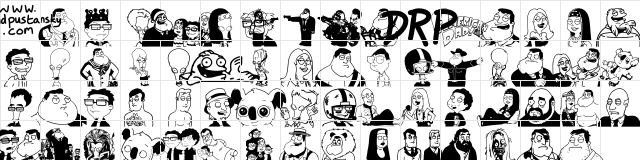
American Dad Good Morning USA Regular Font Preview
American Dad Good Morning USA Regular
Design Context for American Dad Good Morning USA Typeface
American Dad Good Morning USA is a composed and adaptable typeface that performs quietly and consistently across a wide range of design contexts.